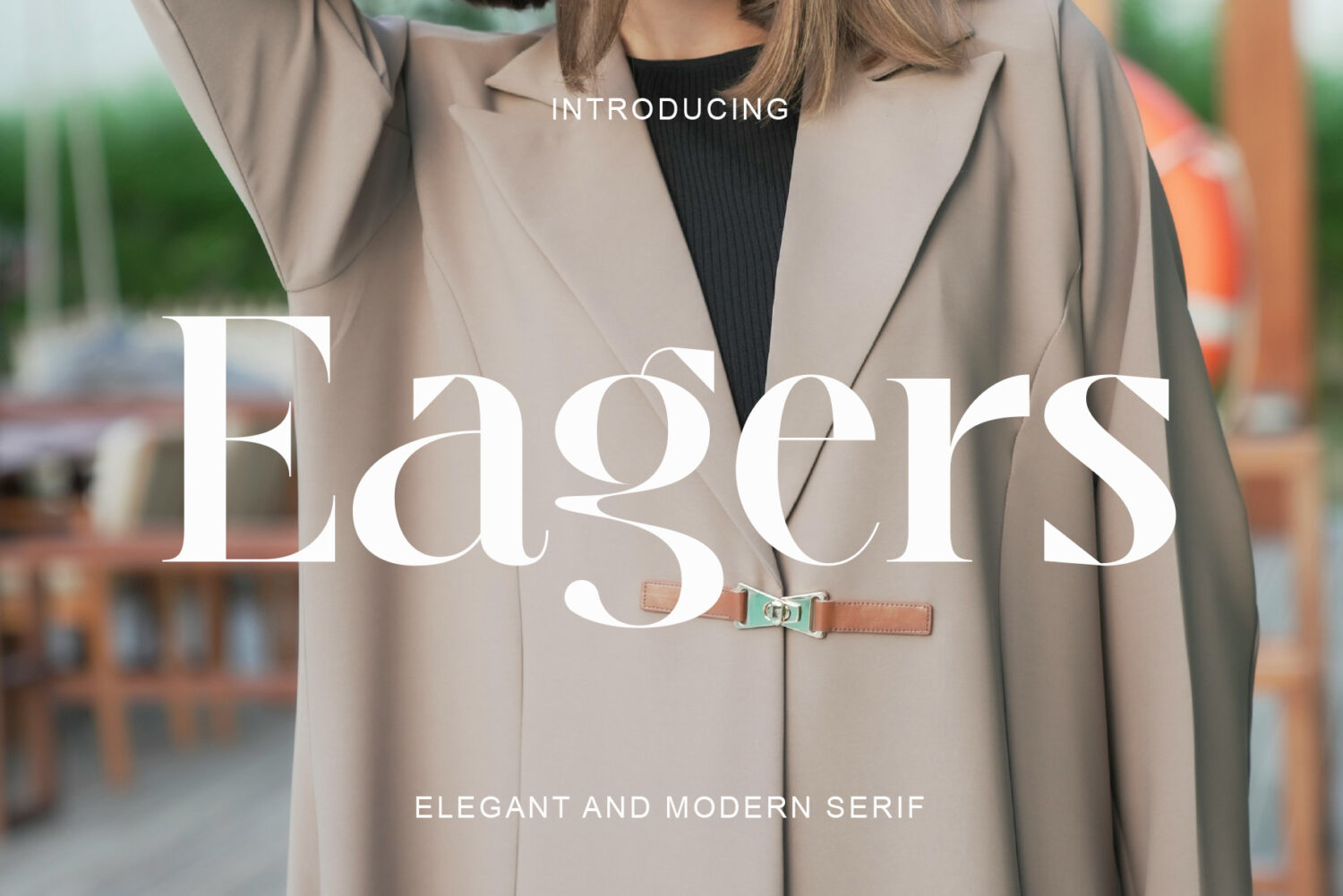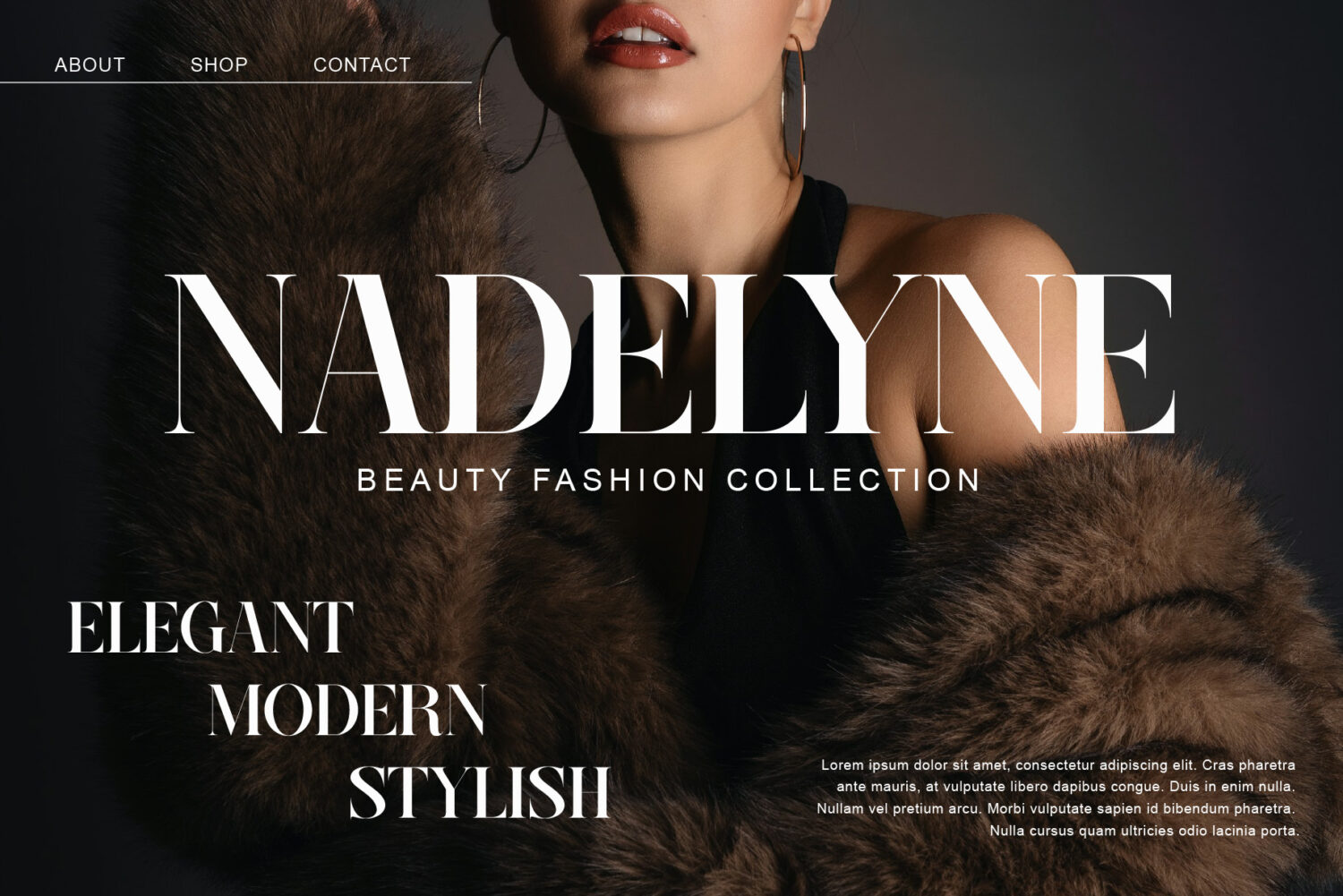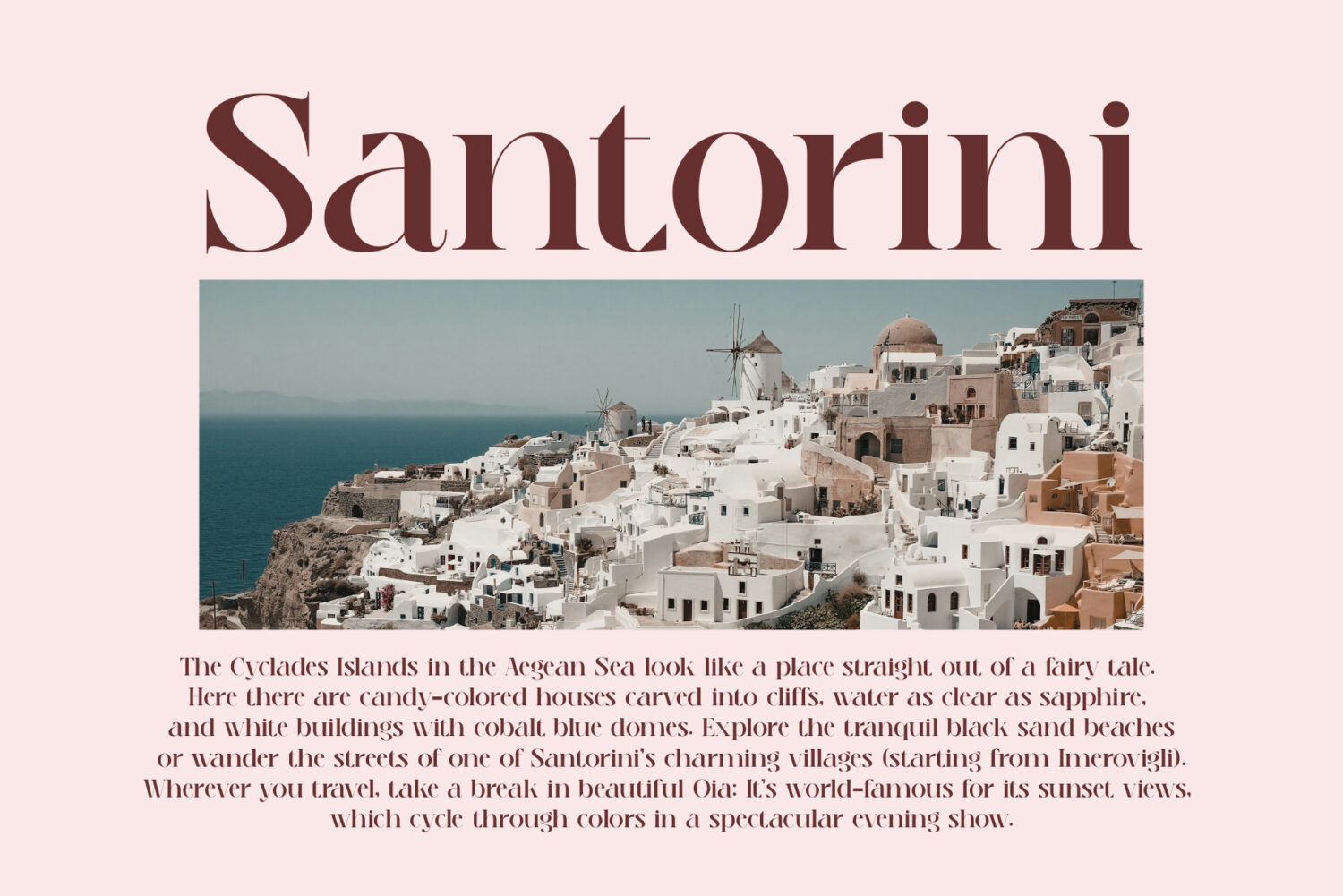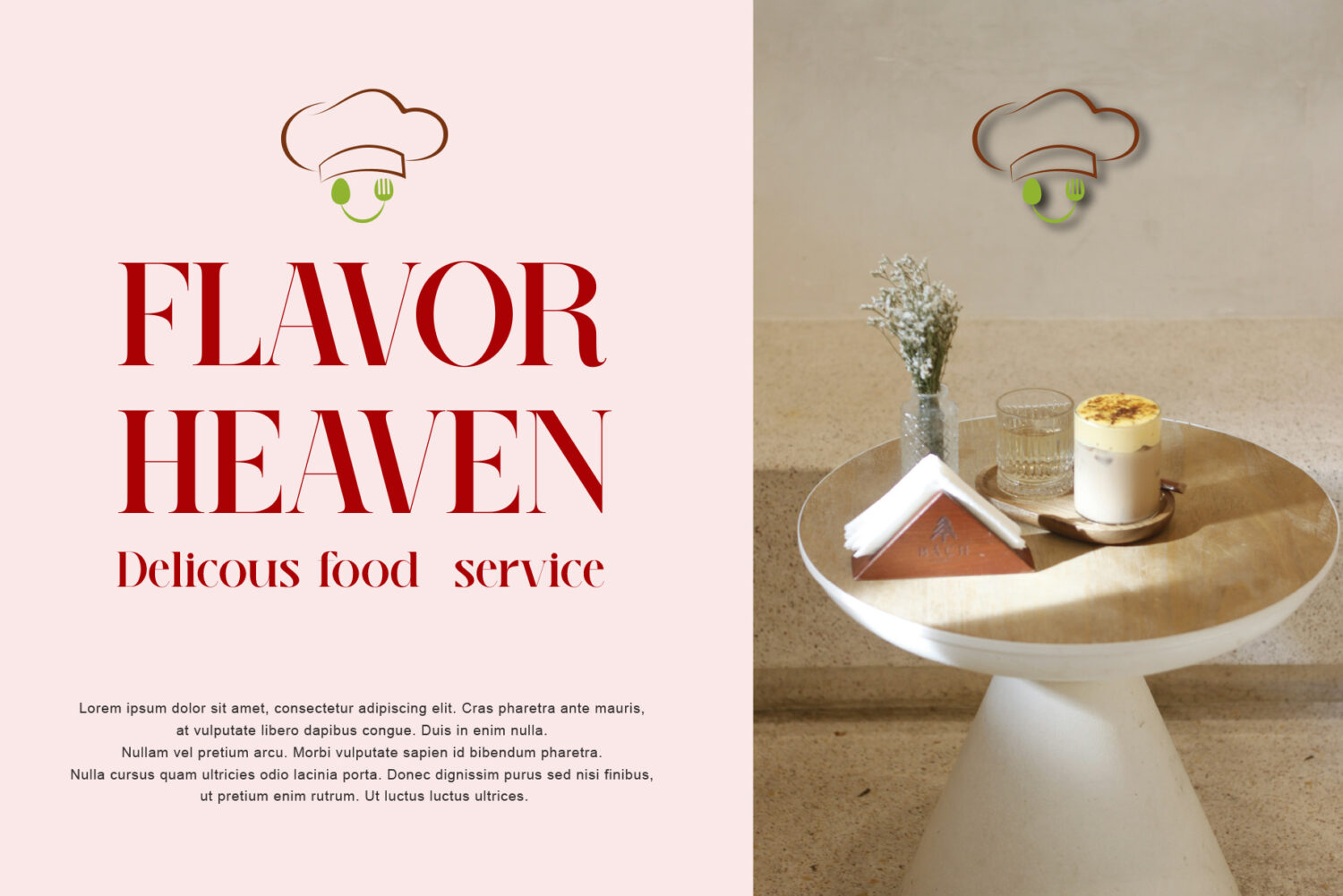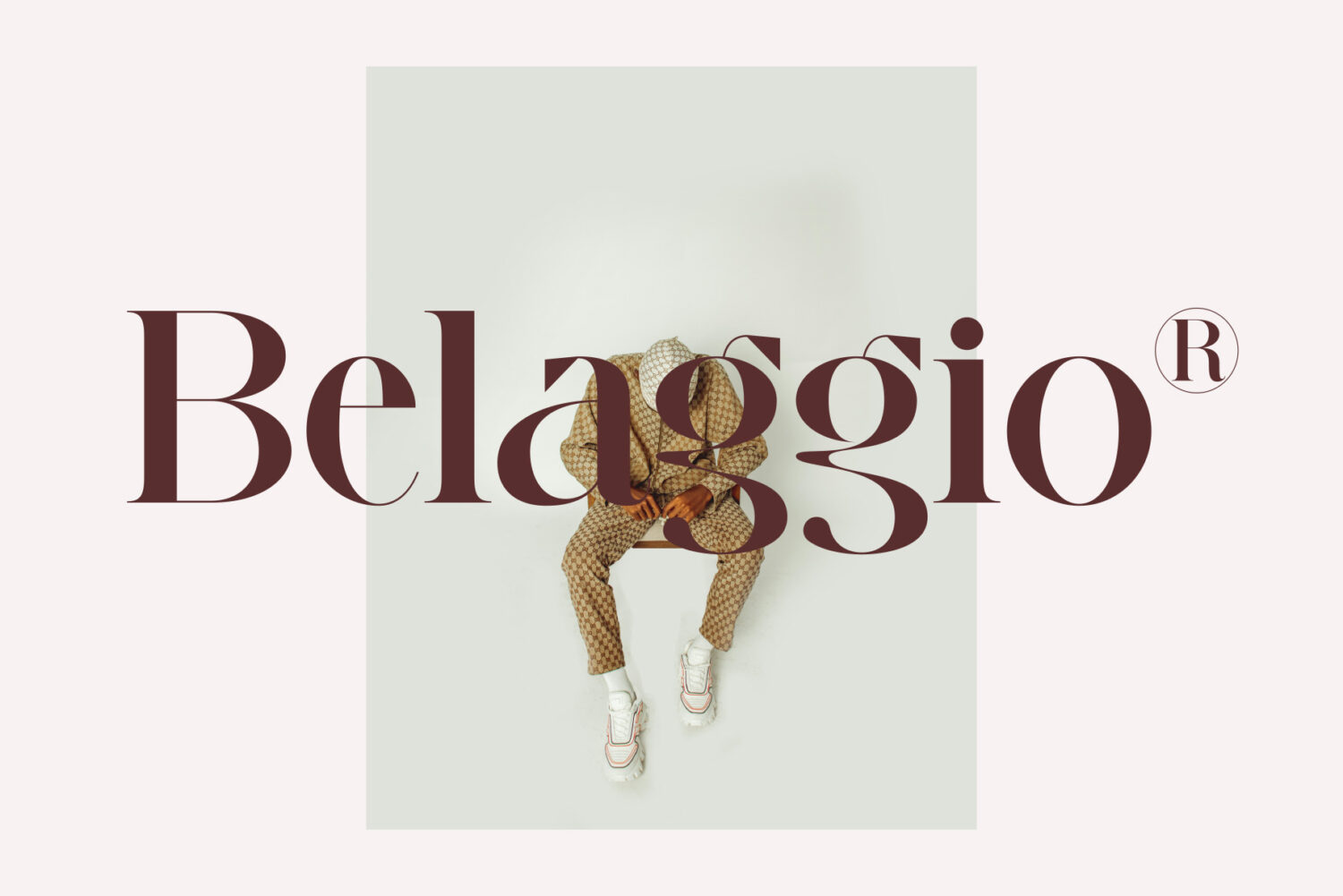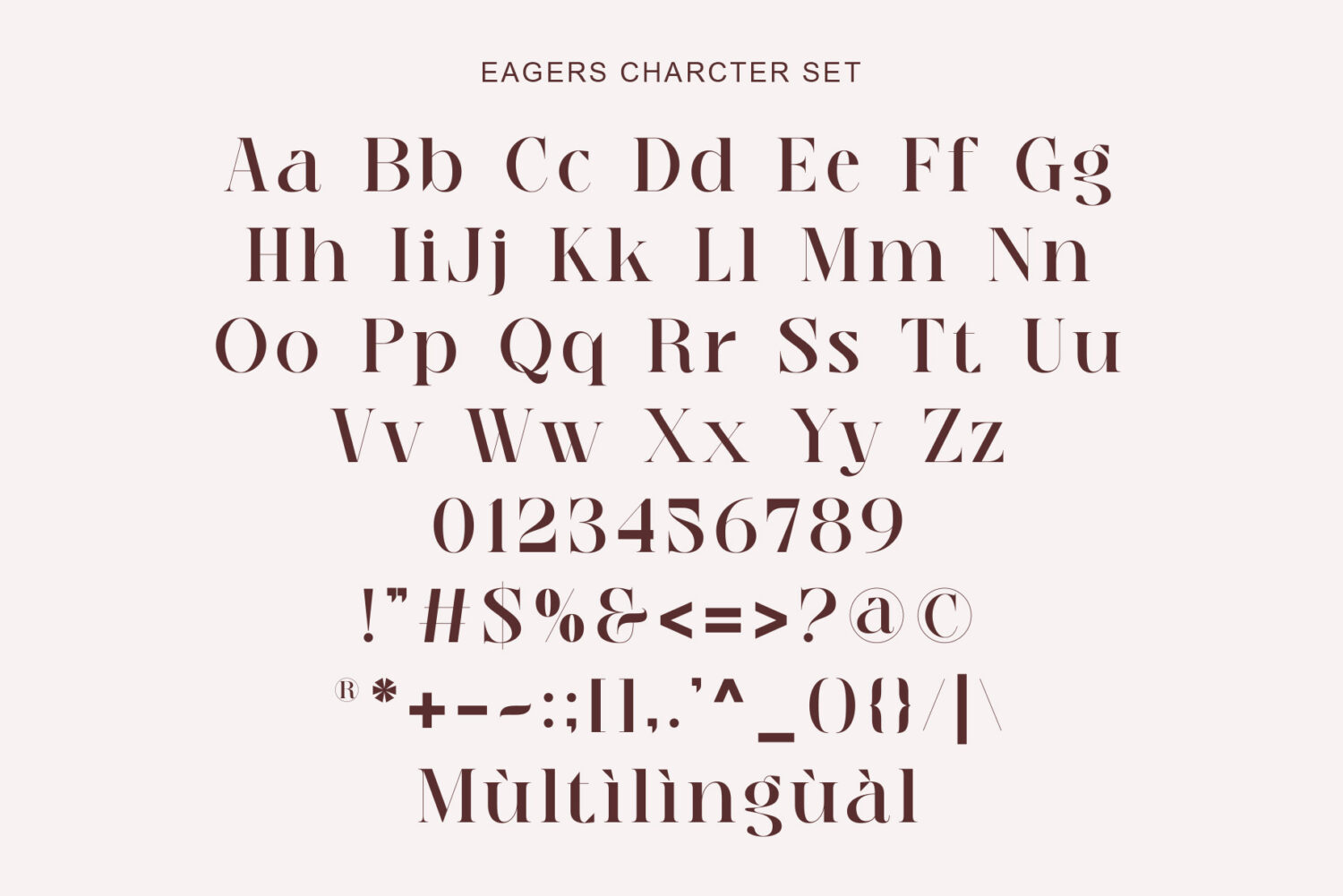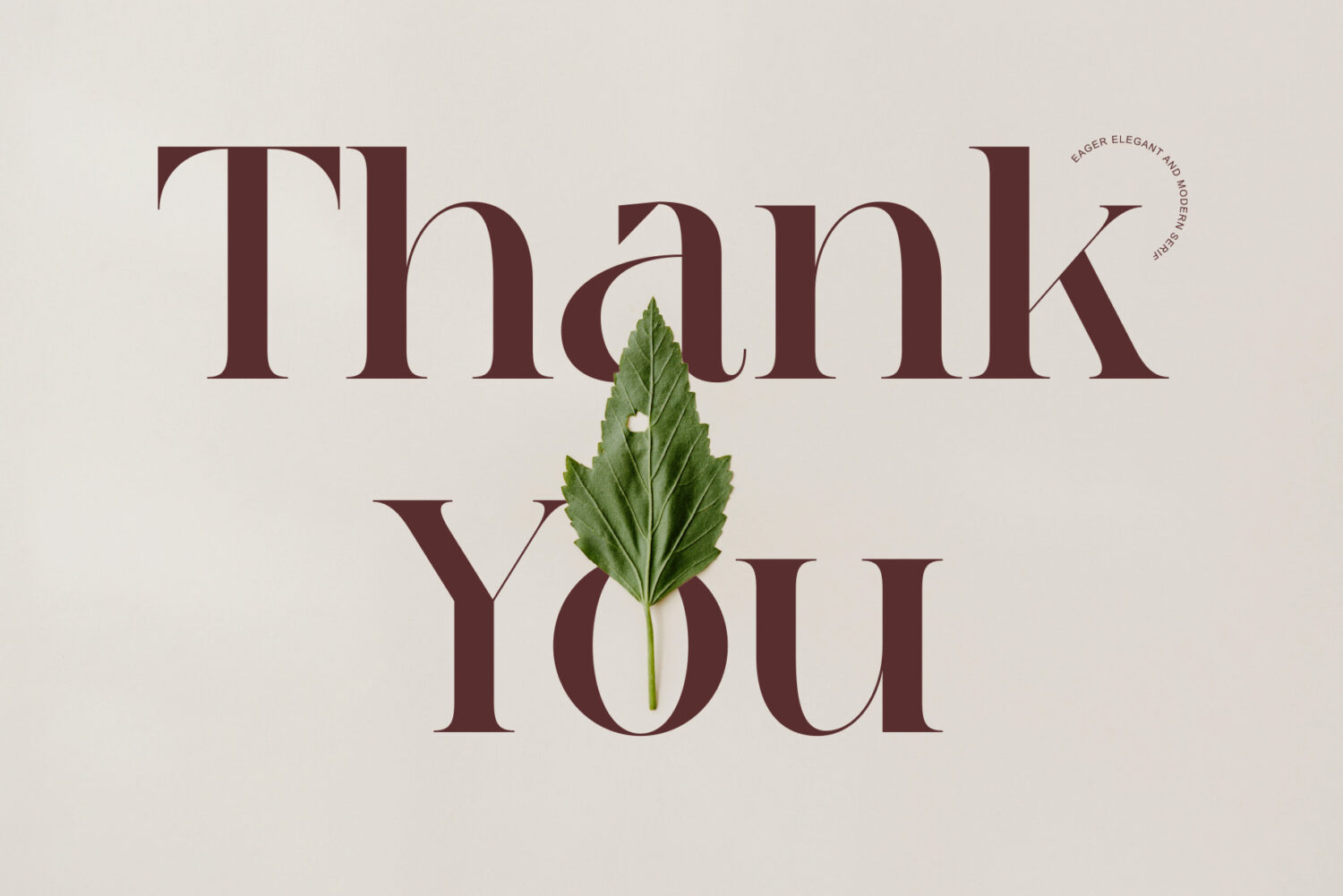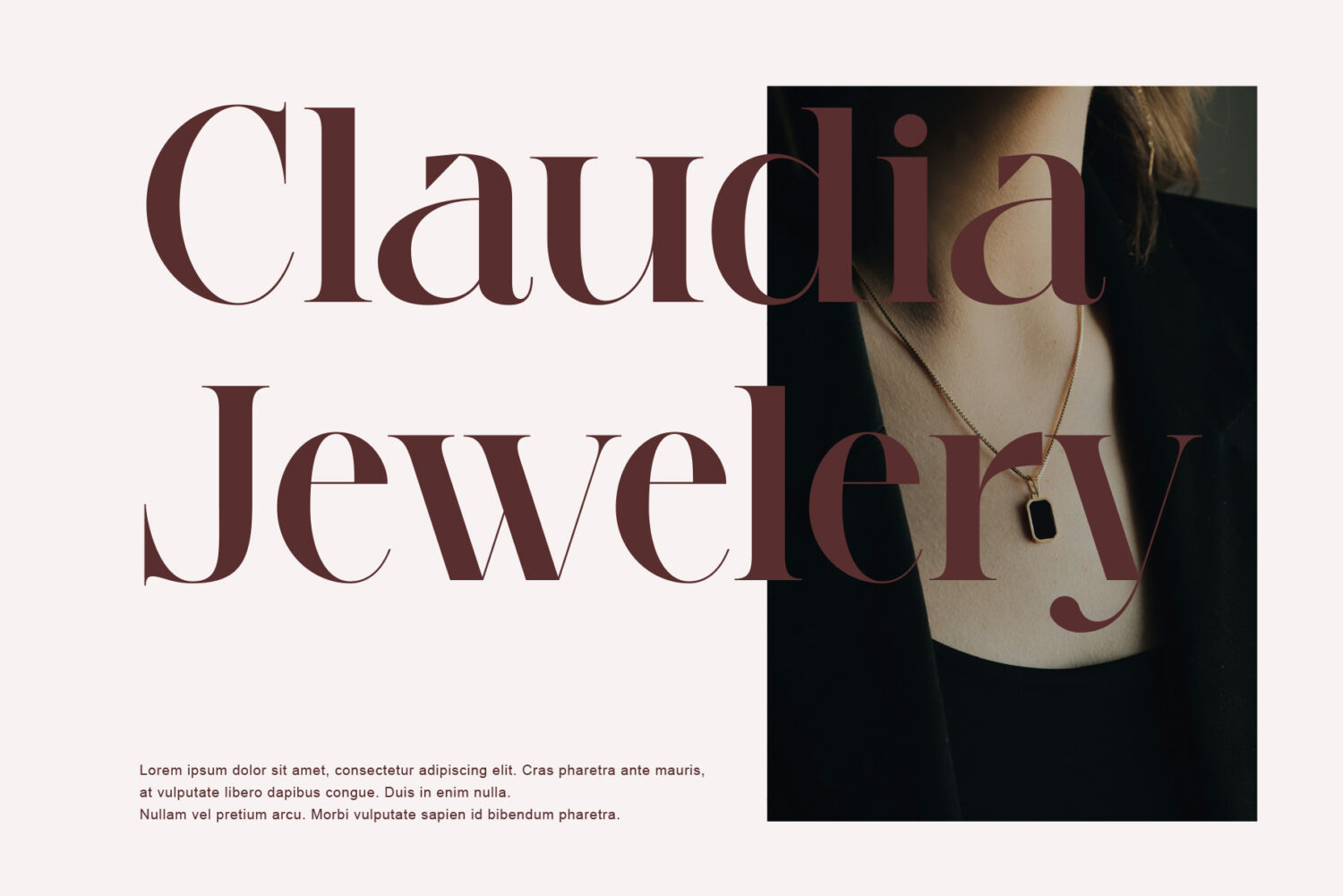
Introducing **Eagers** The elegant, beautiful and modern Serif. With its modern and minimalist appearance, Eagers brings a luxurious, classy and clean style to your projects such as websites, modern logos, branding identities, social media quotes, wedding stationery, magazines and various other needs!
Eagers features unique and classy capital letters A to Z making Eagers a beautiful font that can be adapted to various projects and jobs you want.